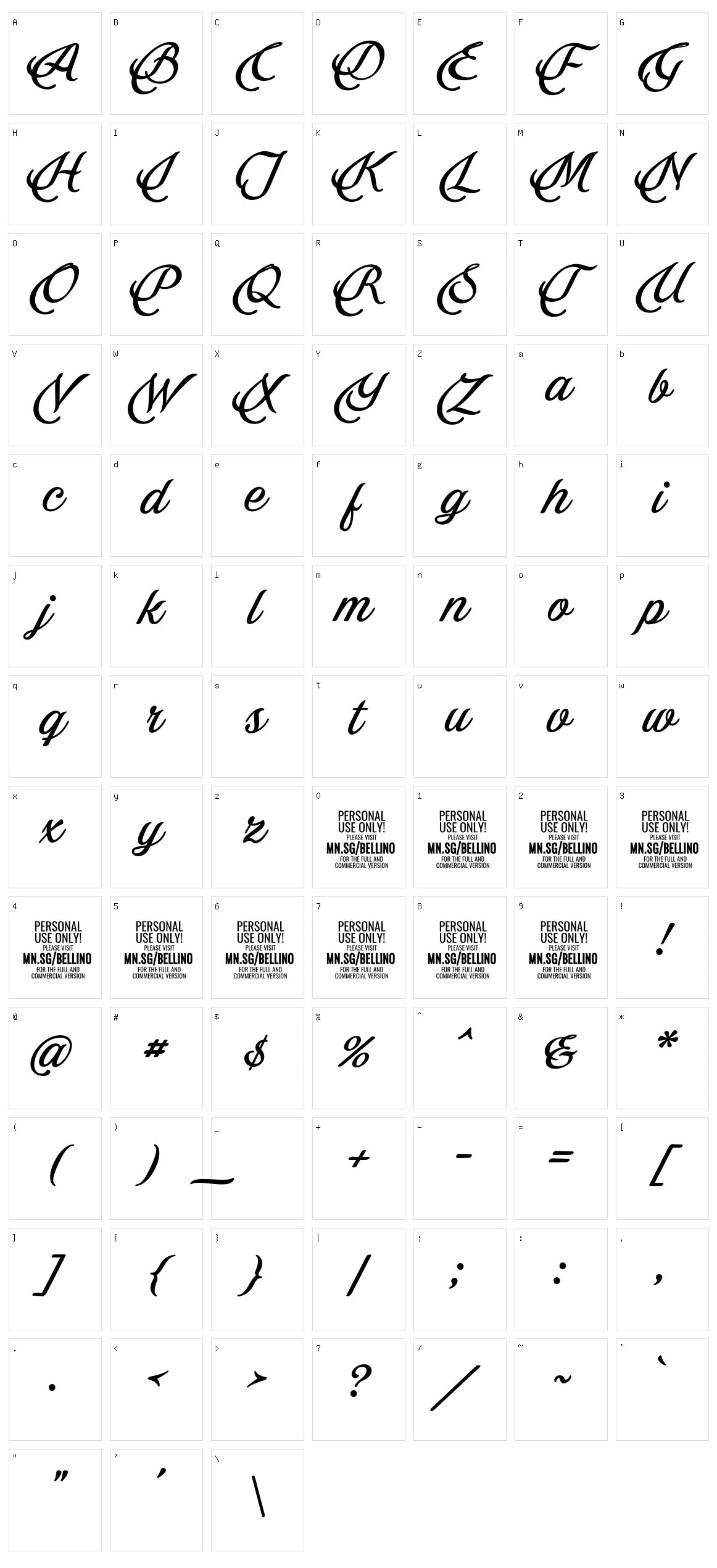
Bellino is a well-crafted script typeface.
Drawn by Måns Grebäck during 2018, this high-quality font has beautiful letter shapes and swashy capitals.
Use one or more underscores after any word to underline.
Example: Bellino___
The font contains stylistic, initial and final alternates, as well as ligatures.
It also has extensive language support.